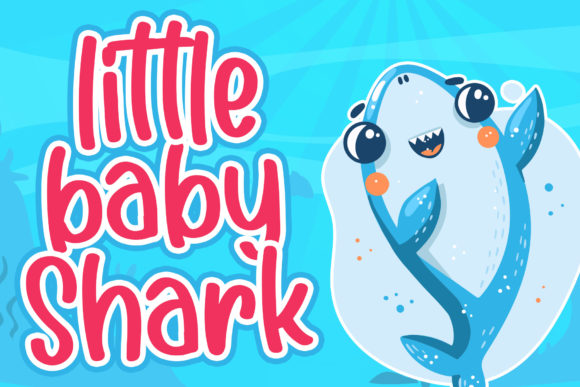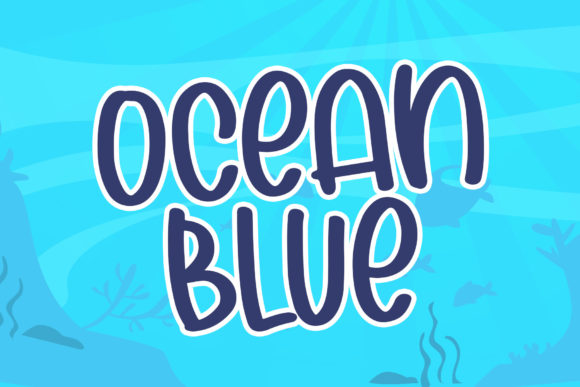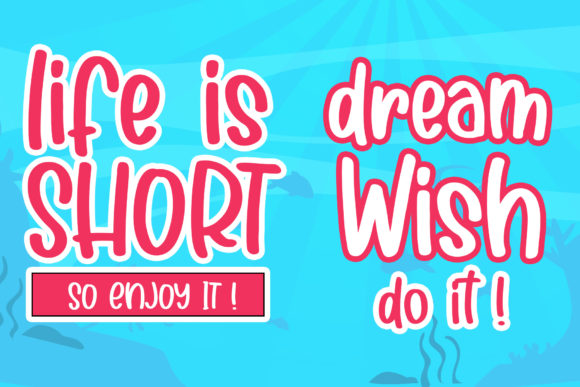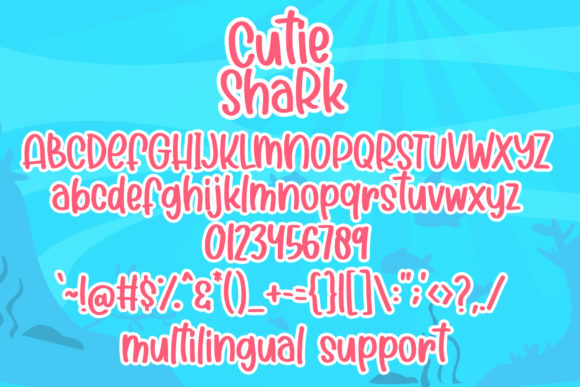
Introducing Cutie Shark Font: The Ultimate Handwritten Font for Creative Designs
Are you tired of using the same old fonts for your design projects? Do you want to add a touch of fun, quirkiness, and authenticity to your creations? Look no further than Cutie Shark Font! This enchanting handwritten font is designed to turn any creative idea into a true standout, elevating a wide range of design projects to the highest level.
The Personality of Cutie Shark Font
Cutie Shark Font embodies the perfect blend of fun, quirkiness, and authenticity. Its unique and playful design makes it an ideal choice for designers and crafters who want to add a personal touch to their work. Whether you’re creating branding materials, headings, wedding designs, invitations, signatures, logos, labels, or more, Cutie Shark Font is sure to make your project stand out from the crowd.
With Cutie Shark Font, the design possibilities are endless! This versatile font can be used for a wide range of projects, including:
- Branding: Create unique and memorable brand identities with Cutie Shark Font. Its playful design makes it perfect for logos, business cards, and letterheads.
- Wedding Designs: Add a touch of whimsy and romance to your wedding designs, including invitations, save-the-date cards, and wedding stationery.
- Headings and Titles: Use Cutie Shark Font to create eye-catching headings and titles for your blog posts, articles, and social media graphics.
- Invitations and Signatures: Create personalized invitations and signatures that reflect your unique style and personality.
- Logos and Labels: Use Cutie Shark Font to create custom logos and labels for your products, packaging, or marketing materials.
Why Choose Cutie Shark Font?
So, why choose Cutie Shark Font for your design projects? Here are just a few reasons:
- Unique and Playful Design: Cutie Shark Font has a one-of-a-kind design that’s sure to grab attention and make your project stand out.
- Authentic and Handwritten: This font is carefully crafted to mimic the look and feel of handwritten text, adding a personal touch to your designs.
- Versatile and Adaptable: Cutie Shark Font can be used for a wide range of design projects, from branding and advertising to wedding designs and crafting.
- Easy to Read and Use: Despite its playful design, Cutie Shark Font is easy to read and use, making it perfect for both digital and print projects.
Tips and Tricks for Using Cutie Shark Font
To get the most out of Cutie Shark Font, here are a few tips and tricks to keep in mind:
- Experiment with Font Sizes: Cutie Shark Font looks great in a variety of font sizes, so don’t be afraid to experiment and find the perfect size for your project.
- Pair with Other Fonts: Try pairing Cutie Shark Font with other fonts to create a unique and eye-catching design.
- Use for Headings and Titles: Cutie Shark Font is perfect for headings and titles, so be sure to use it to add visual interest to your designs.
- Add a Personal Touch: Use Cutie Shark Font to add a personal touch to your designs, whether it’s a handwritten note or a custom signature.
In conclusion, Cutie Shark Font is a versatile and playful handwritten font that’s perfect for designers and crafters who want to add a touch of fun, quirkiness, and authenticity to their designs. With its unique design, endless possibilities, and ease of use, Cutie Shark Font is sure to become a go-to font for creative projects of all kinds. So why wait? Try Cutie Shark Font today and see the difference it can make in your designs!